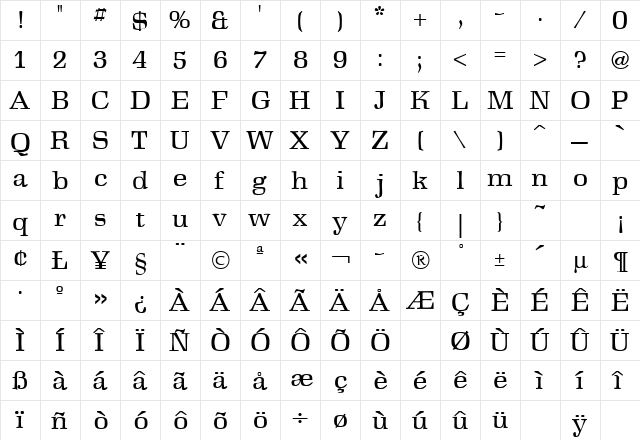
Antikva Regular
Design Context for Antikva Typeface
Antikva is a composed and adaptable typeface that performs quietly and consistently across a wide range of design contexts.